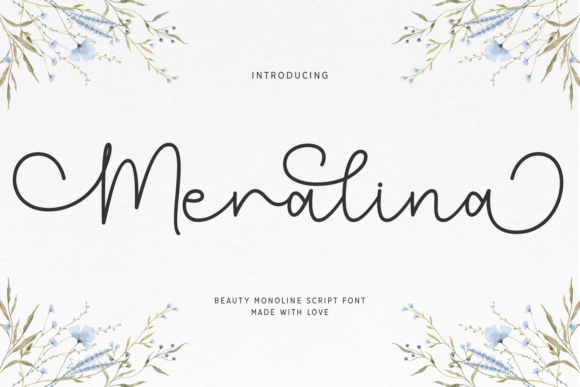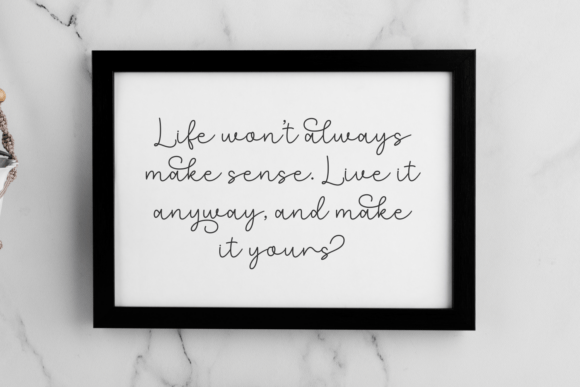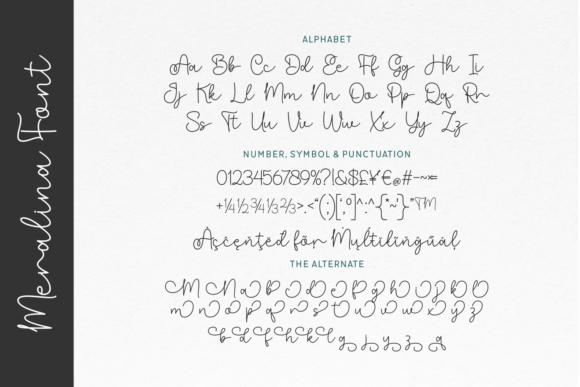
Meralina Font: Elegant Script for Wedding Designs & Feminine Branding
About the Meralina Font
We are excited to introduce Meralina Font, a must-have typeface for any serious designer. Meralina is a delicately crafted monoline script font, radiating elegance and romantic charm. With its soft loops, smooth connections, and whimsical flourishes, this handwritten typeface is perfect for wedding designs, floral branding, love quotes, and feminine stationery. Made with love, Meralina adds a graceful, heartfelt touch to every creative project.
Meralina’s elegant, delicate nature makes it ideal for projects requiring a touch of refined femininity. It excels in short text applications such as logos, headlines, and social media graphics. Consider it for wedding invitations, product packaging for beauty or fashion brands, or short quotes on marketing materials. However, its thin strokes and flowing script are unsuitable for body copy or lengthy text where readability is paramount.
For optimal visual harmony, pair Meralina with a clean sans-serif like Montserrat for a modern contrast, or a classic serif such as Garamond for a more traditional feel. A geometric sans-serif like Futura could also provide a striking juxtaposition, creating a sophisticated balance between the organic script and sharp geometric forms.
Meralina projects a soft, romantic, and graceful personality, making it an excellent choice for brands that wish to convey elegance and a sense of heartfelt charm.